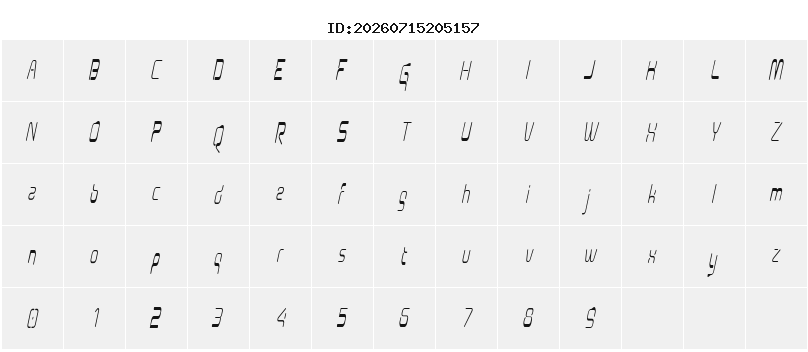
Aunchanted Condense Oblique Preview
• Font Name: Aunchanted Condense Oblique
• Full Font Name: Aunchanted Condense Oblique
About Aunchanted Condense Oblique.ttf
Aunchanted Condense Oblique.ttf is a modern, elegant sans-serif font designed for ultimate readability and visual harmony. Perfect for branding, headlines, web design, and print materials.